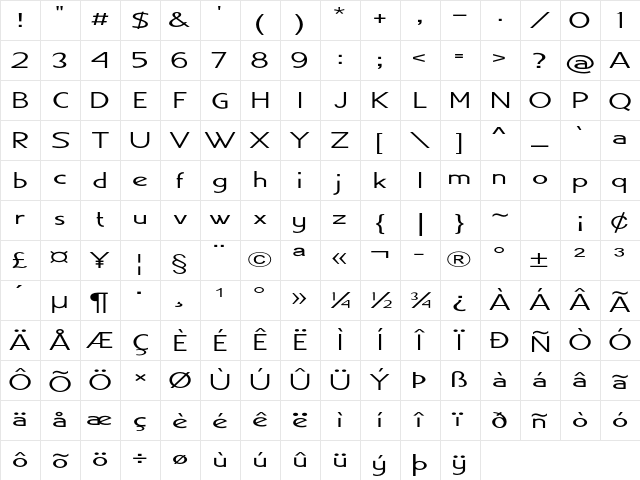
Juju Extra-expanded Regular
Style: Extra-expanded Regular
Juju Family
Juju Extra-expanded Regular
Design Context for Juju
Juju is a composed and adaptable typeface that performs quietly and consistently across a wide range of design contexts.